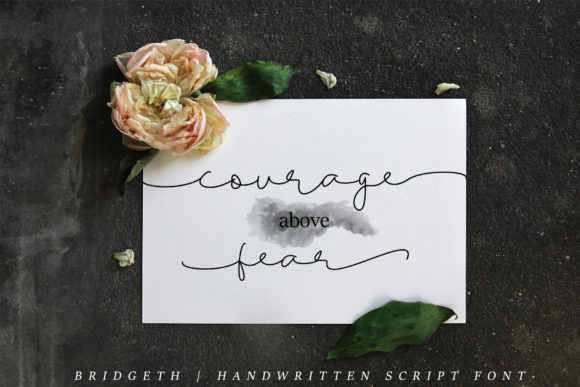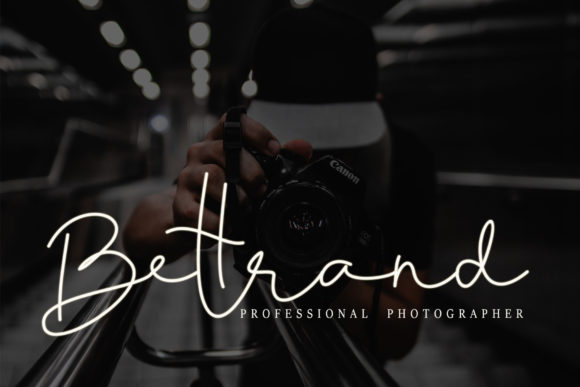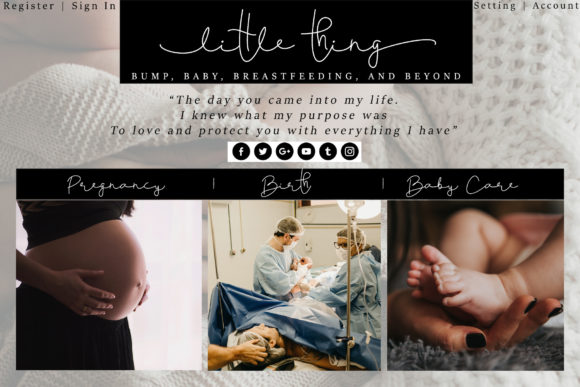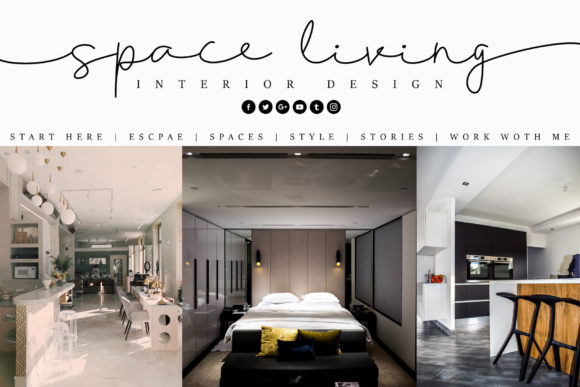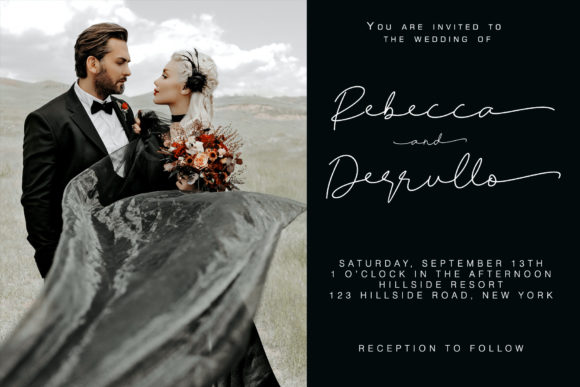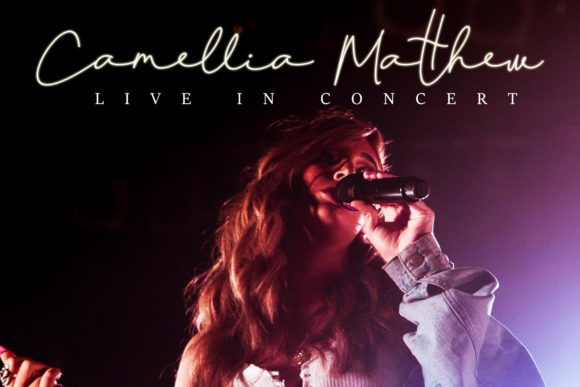
Discover the Elegance of Bridgeth Font: A Handwritten Script Font for Your Creative Projects
Are you a designer or crafter looking for a font that can add a touch of elegance and sophistication to your creative projects? Look no further than Bridgeth Font, a beautiful handwritten script font that is perfect for a variety of applications. In this article, we’ll take a closer look at Bridgeth Font, its features, and how you can use it to elevate your designs.
What is Bridgeth Font?
Bridgeth Font is a handwritten script font that boasts an elegant and beautiful look. Its flowing lines and curves make it perfect for designs that require a personal touch. Whether you’re creating wedding invitations, thank you cards, quotes, greeting cards, logos, or business cards, Bridgeth Font is sure to impress.
Key Features of Bridgeth Font
So, what makes Bridgeth Font so special? Here are some of its key features:
- Elegant and Beautiful Design: Bridgeth Font has a unique and sophisticated design that will add a touch of elegance to your projects.
- Handwritten Script: The font has a handwritten script style that gives it a personal and intimate feel.
- Versatile: The font is perfect for a variety of applications, including wedding invitations, thank you cards, quotes, greeting cards, logos, and business cards.
Benefits of Using Bridgeth Font
So, why should you choose Bridgeth Font for your creative projects? Here are some benefits of using this beautiful font:
- Adds a Personal Touch: Bridgeth Font’s handwritten script style gives your designs a personal and intimate feel that will make them stand out.
- Versatile: Bridgeth Font is perfect for a variety of applications, making it a great addition to your font library.
- Elegant and Sophisticated: The font’s elegant and beautiful design makes it perfect for designs that require a touch of sophistication.
Here are some tips and tricks for designers and crafters who want to get the most out of Bridgeth Font:
- Experiment with Different Sizes and Styles: Try out different sizes and styles to see what works best for your design.
- Use Glyphs and Swashes: Don’t be afraid to experiment with the glyphs and swashes to add a personal touch to your design.
- Pair with Other Fonts: Try pairing Bridgeth Font with other fonts to create a unique and interesting design.
- Use for Branding: Use Bridgeth Font for branding purposes, such as logos and business cards, to create a cohesive look.
In conclusion, Bridgeth Font is a beautiful handwritten script font that is perfect for designers and crafters who want to add a touch of elegance and sophistication to their creative projects. With its elegant and beautiful design, PUA encoding, and versatility, Bridgeth Font is a great addition to any font library. Whether you’re creating wedding invitations, thank you cards, quotes, greeting cards, logos, or business cards, Bridgeth Font is sure to impress.